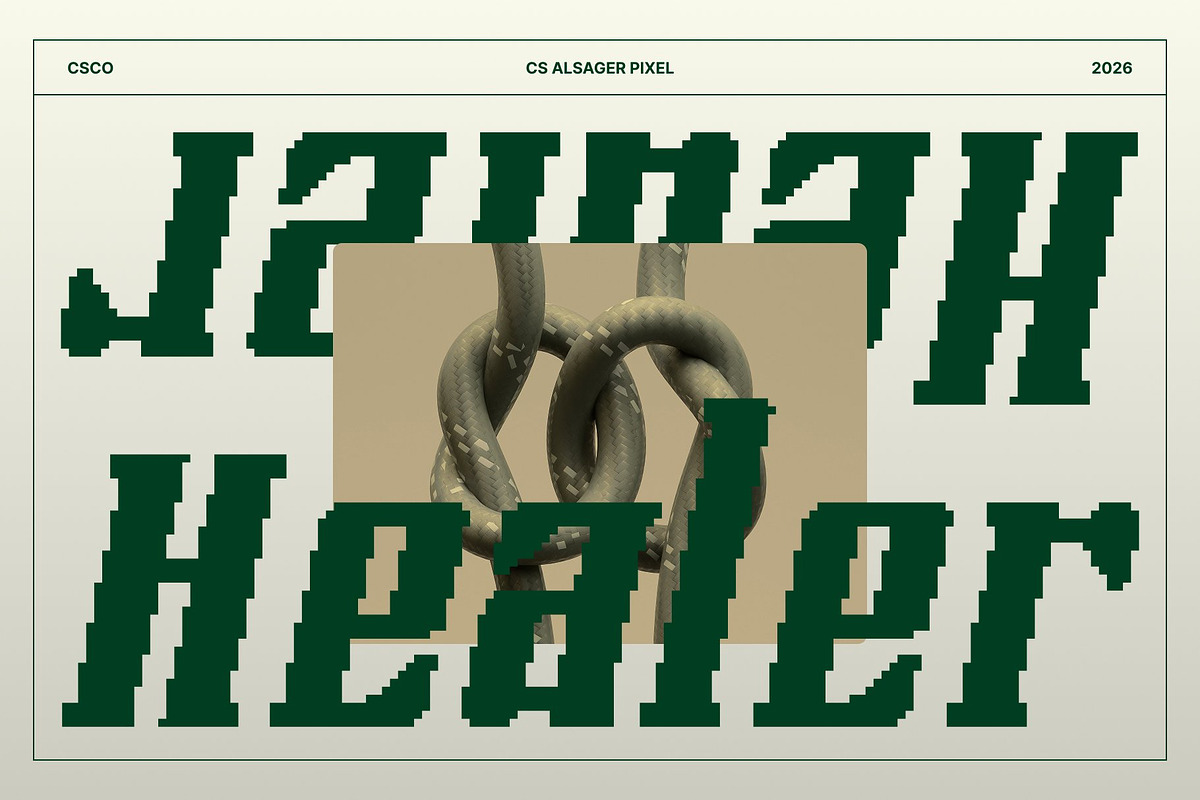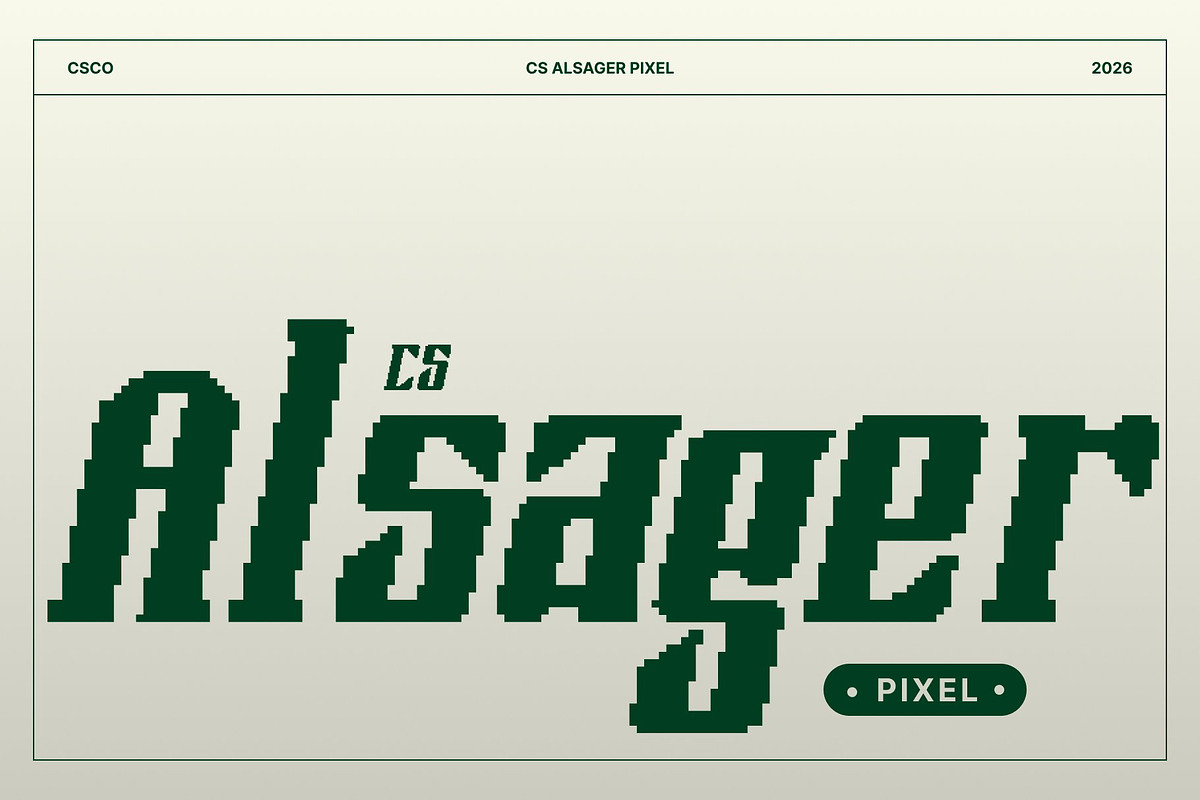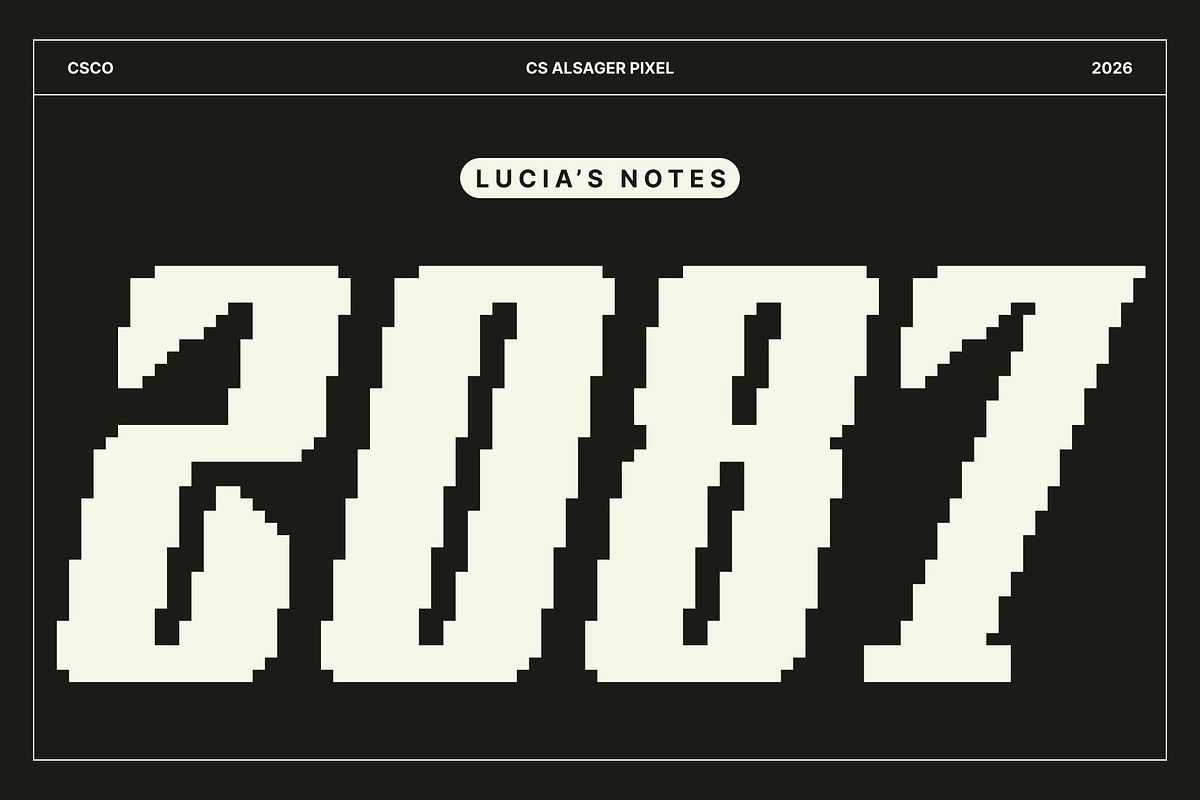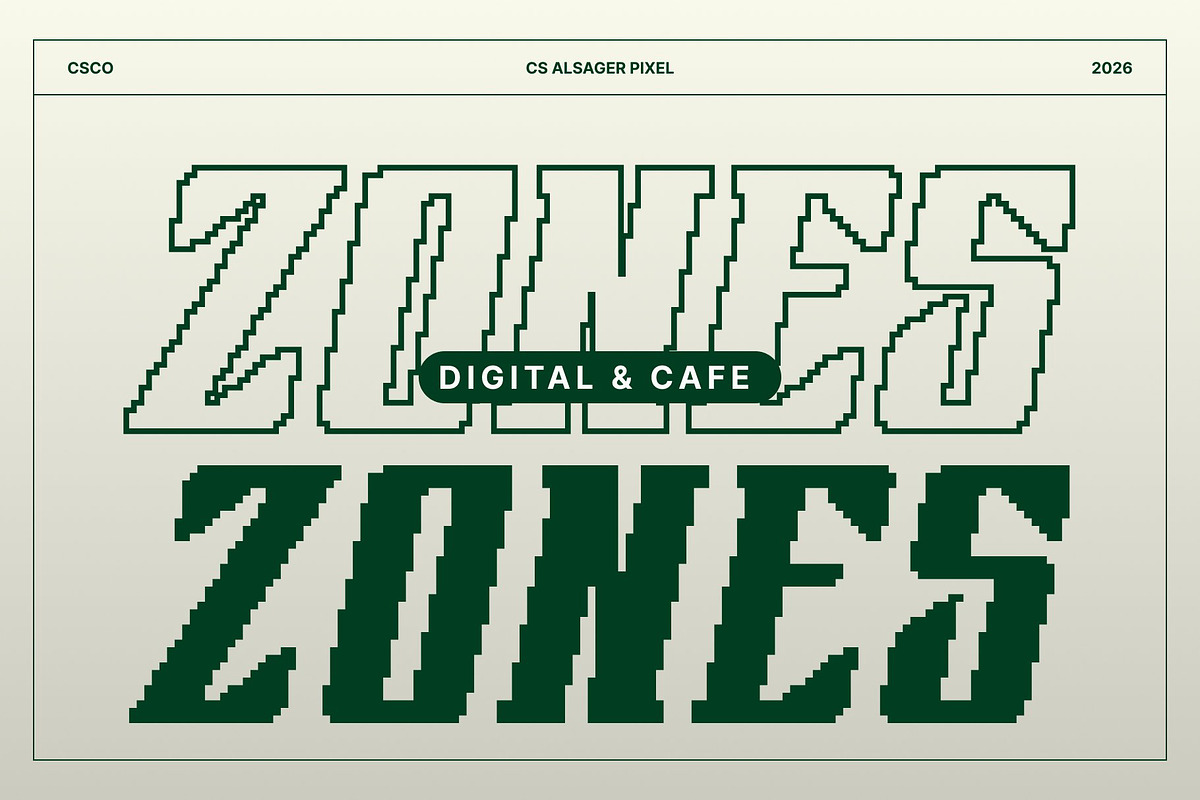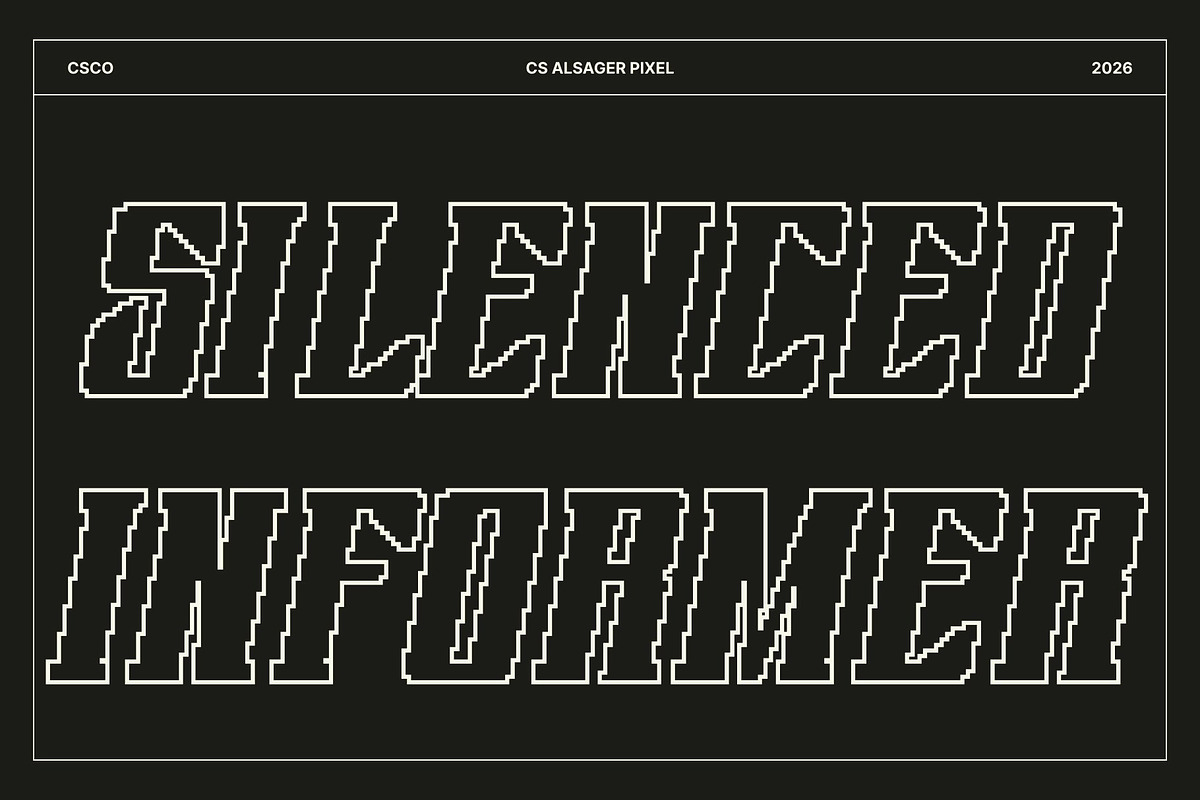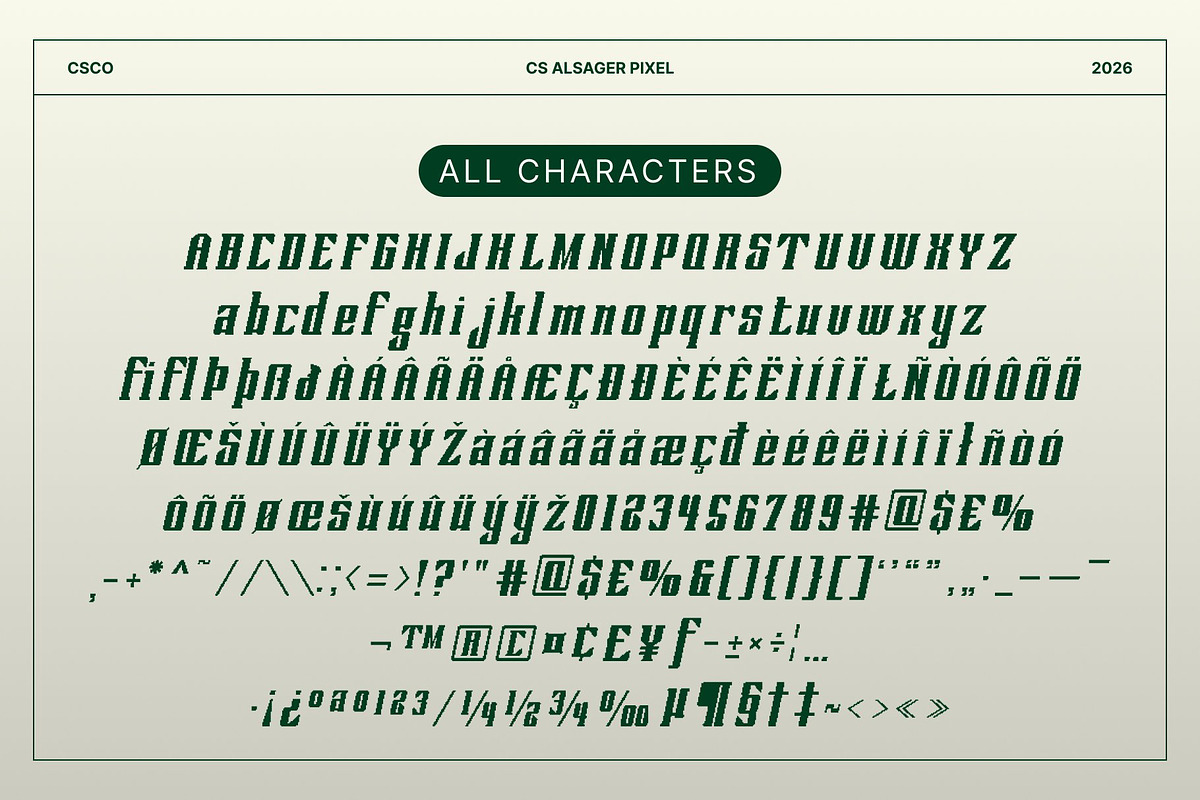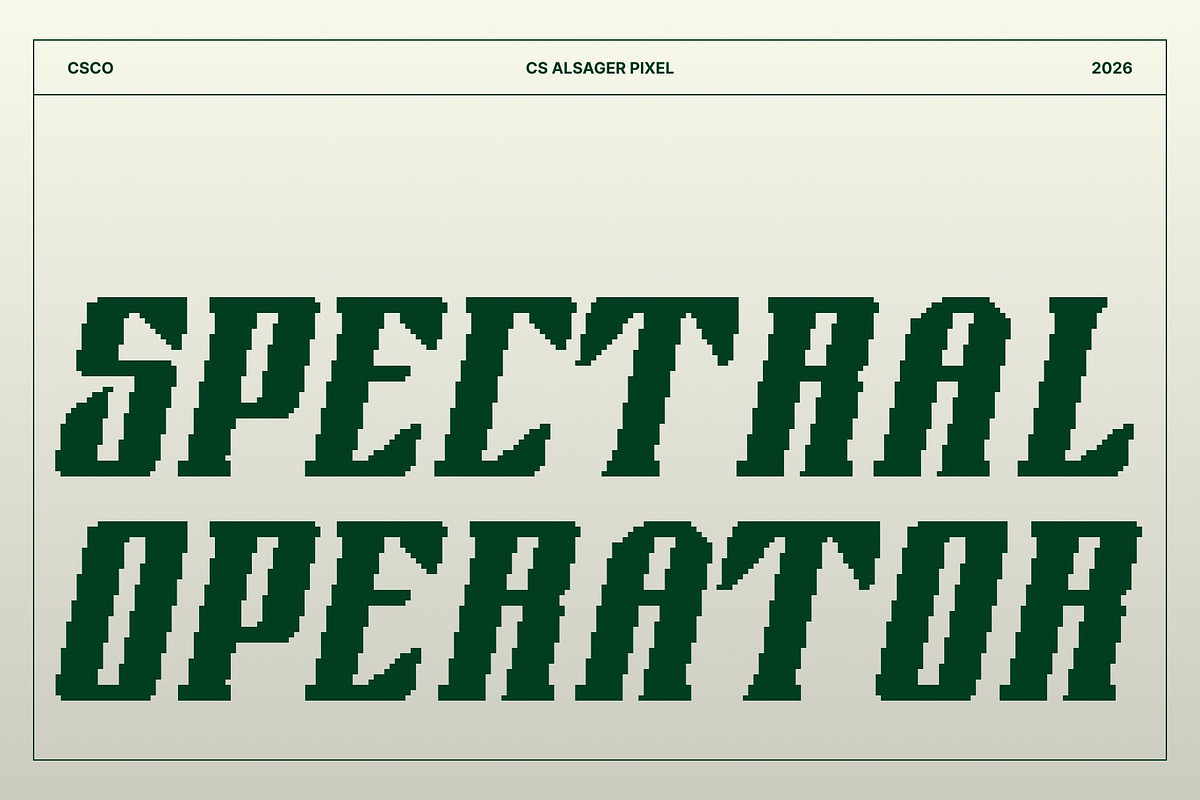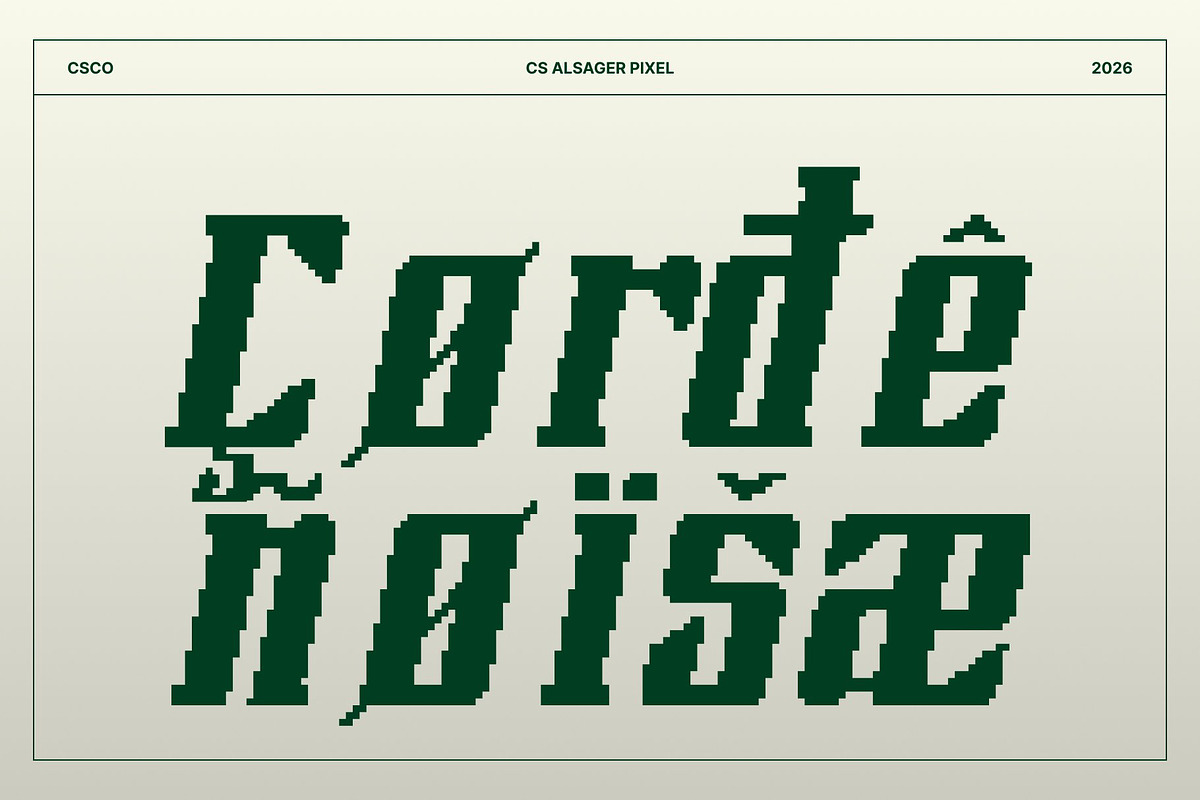
CS Alsager Pixel
CS Alsager Pixel – Industrial Strength with Futuristic Precision
Industrial Display Font with Futuristic Pixel Character This is an industrial display font designed to express strength, control, and technical precision through a bold pixel-based structure. Its solid construction, sharp serif details, and pixel-aligned forms create a powerful visual language that feels mechanical, digital, and forward-looking. Inspired by industrial machinery and futuristic systems, this font delivers a commanding presence with a distinctive retro-digital edge.
Structured Pixel Forms for Powerful Impact The structured anatomy of this font gives it a solid and authoritative appearance. Strong vertical strokes, firm slab serifs, and carefully constructed pixel shapes create a font that feels engineered rather than decorative. The pixel grid adds rigidity and rhythm, reinforcing a sense of precision, stability, and technical reliability ideal for impactful visual communication.
Futuristic Precision with Industrial Edge Blending industrial toughness with futuristic pixel precision, this font communicates efficiency, innovation, and progress. Its sharp detailing and controlled spacing enhance readability while emphasizing a high-tech, urban atmosphere. The pixel styling introduces a subtle retro influence, making the font feel both modern and digitally nostalgic.
Perfect for Modern Branding, Tech, and Headlines This font excels in modern branding, posters, editorial layouts, and bold headlines. It is ideal for tech-forward brands, industrial products, urban themes, gaming visuals, and futuristic campaigns. Whether used for logos or striking displays, this font delivers a strong, memorable typographic presence with digital confidence and industrial power.